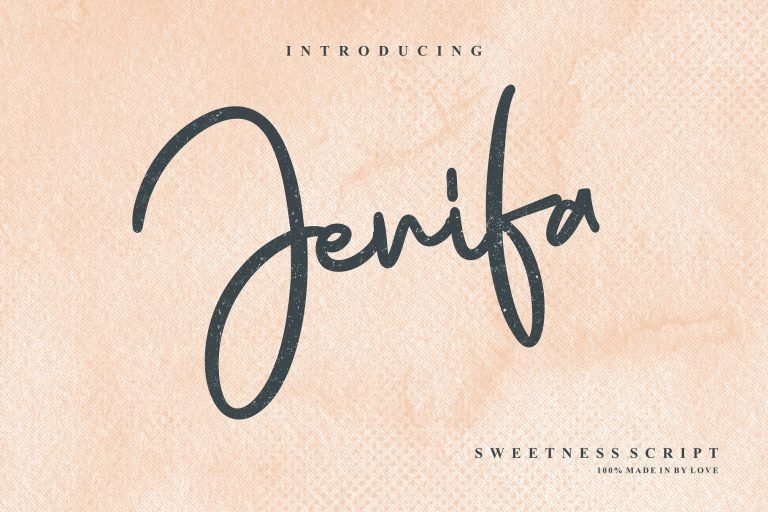
Jenifa Script Font
Introducing Jenifa – an modern handwriting script font. It is designed and shared by 24Design Stds. Jenifa Font is modern feminine font, every single letters have been carefully crafted to make your text looks beautiful. With modern script style this font will perfect for many different project ex: logo, photography, watermark, quotes, snapgram, blog header, poster, wedding, branding, logo, fashion, apparel, letter, invitation, stationery, etc.